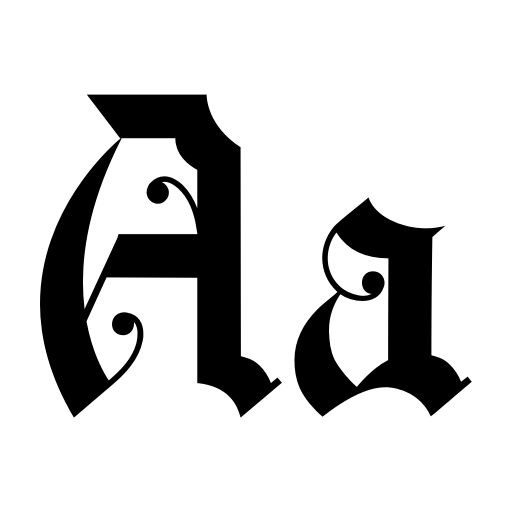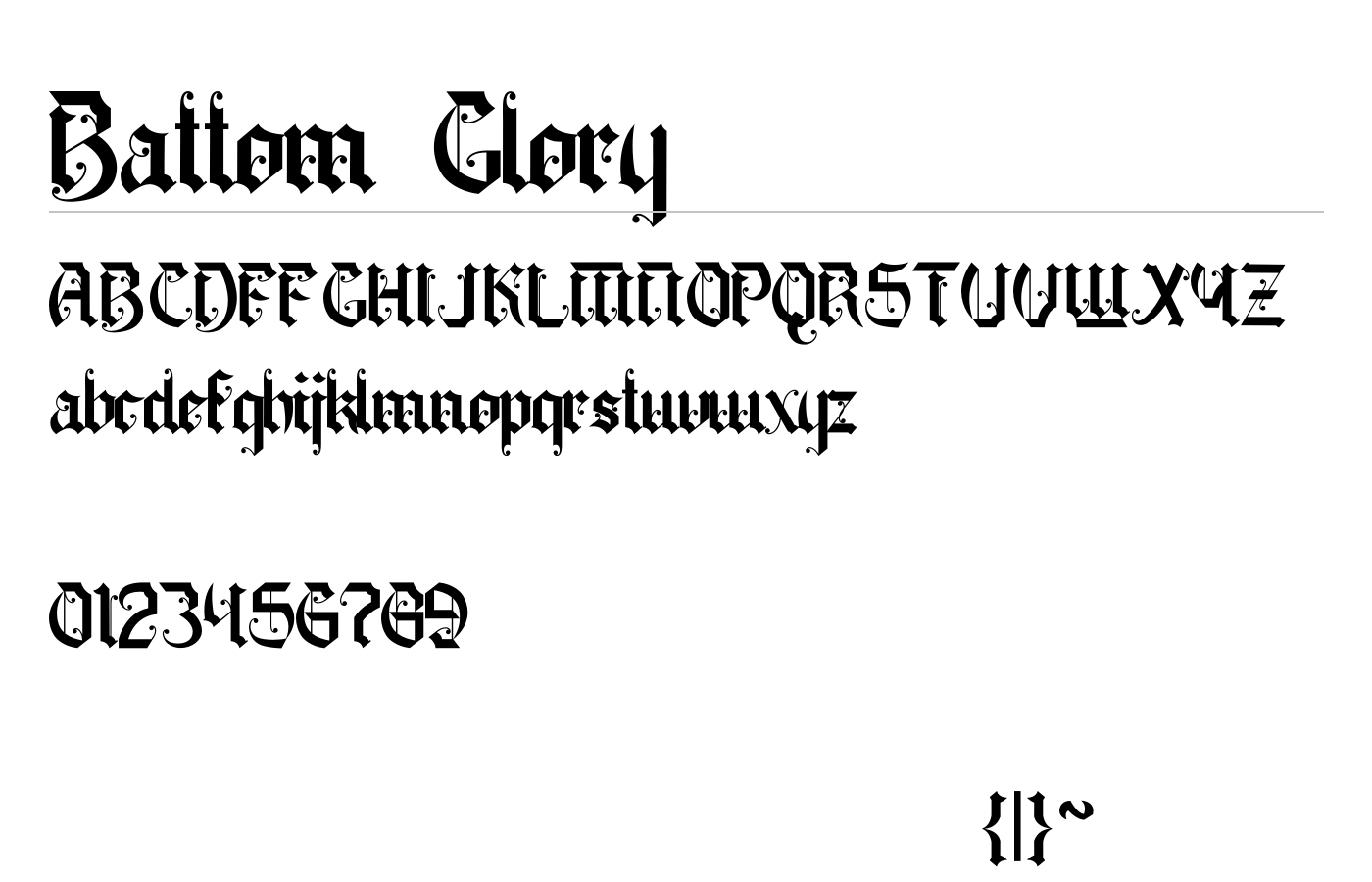
Battom Glory is a bold Blackletter serif font with intricate, sharp, and angular letterforms that evoke a historic or gothic feel. Its ornate style suits decorative headlines, logos, and branding that seeks a vintage, medieval, or dramatic personality, while its distinctive shapes create a striking visual impact best used in display rather than body text. This font is ideal for projects needing an elegant yet bold statement with a strong traditional flair.
Battom Glory Font
About Battom Glory Font